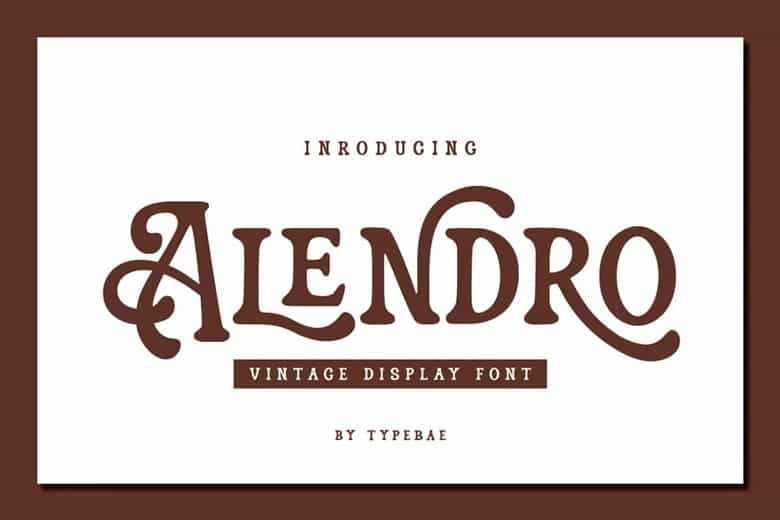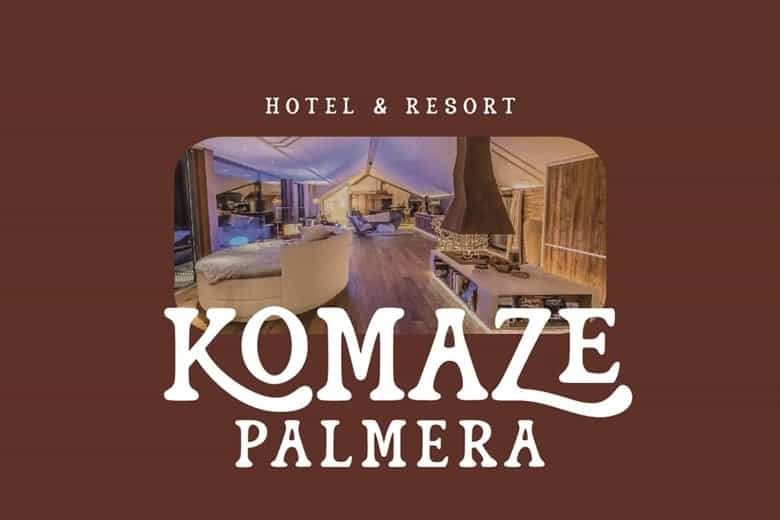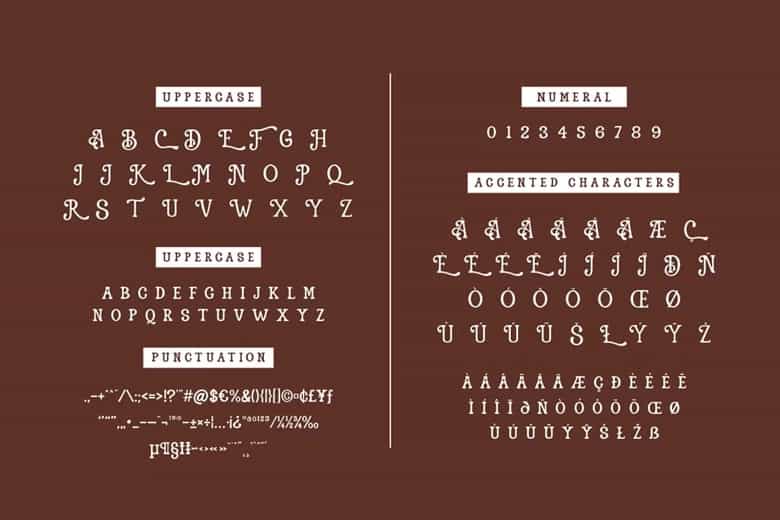
Alendro is a chic old fashioned display typeface with a high-end retro and funky atmosphere on any project. Graceful curves and ornate letterforms make it ideal in branding, packaging, logo, headline and boutique labels.